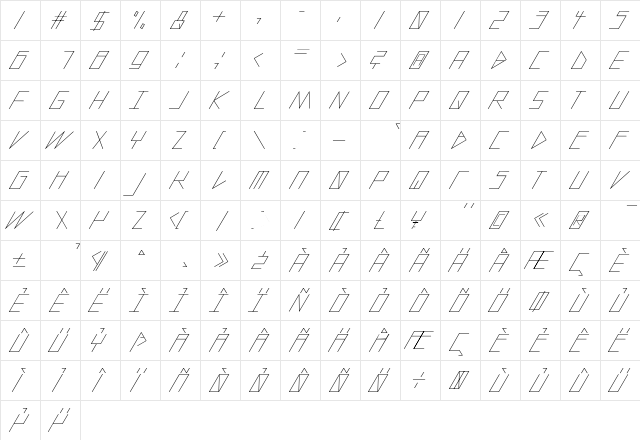
slanted ITALIC shift Light Font Preview
| Foundry | Manuel Viergutz |
| Designer | Manuel Viergutz |
Design Context for slanted ITALIC shift Typeface
slanted ITALIC shift takes a measured approach to typography — its balanced proportions and neutral character make it a reliable workhorse for both digital and print work. The dynamic lean of this cut emphasises speed and emphasis in any layout. The delicate stroke weight brings airiness and refinement to layouts.
Pro Tip: Use slanted ITALIC shift for emphasis, pull quotes, and subheadings where its slanted energy can add rhythm to the layout.